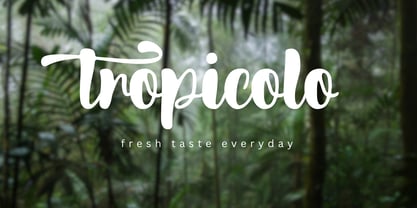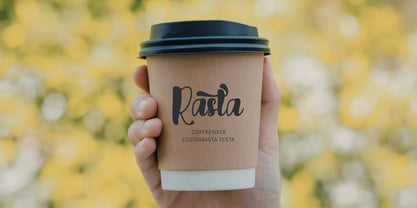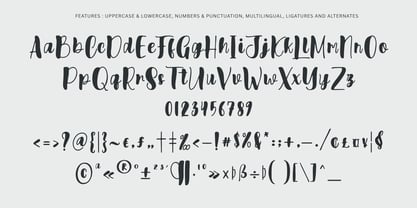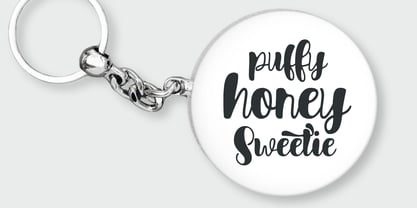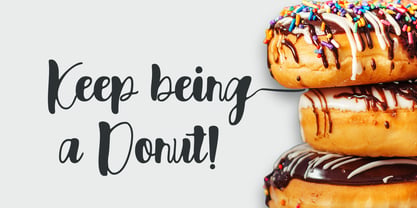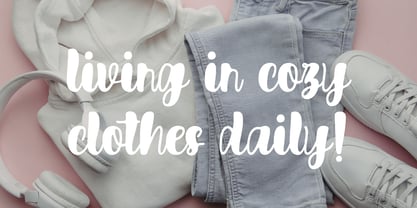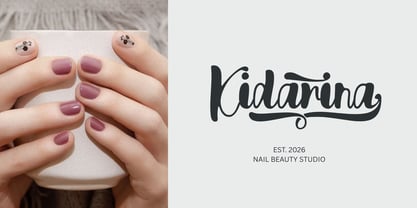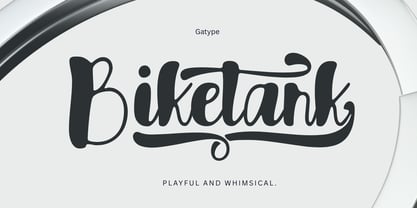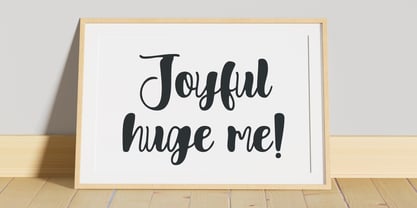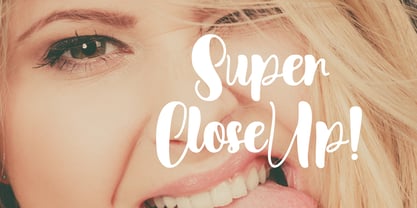
Biketank
by Gatype
The Biketank Font Family was designed by khaidir and published by Gatype. Biketank contains 1 styles. More about this family
Introducing Biketank, a classy modern script font crafted with a bold personality and smooth, flowing curves. Handwritten with precision, Biketank brings a natural, elegant touch to your designs while keeping a strong visual impact. Created to give designers more creative freedom, this font blends expressive strokes with fluid movement—perfect for logotypes, branding, packaging, merchandise, labels, and more. Features: Uppercase & Lowercase Characters Numbers & Symbols Punctuation Set Multilingual Support PUA Encoded OpenType Features Enjoy